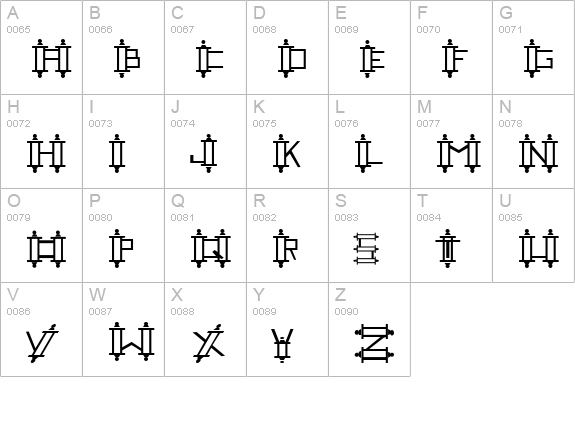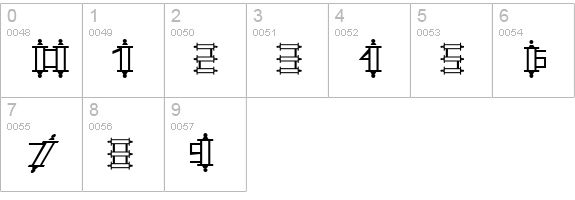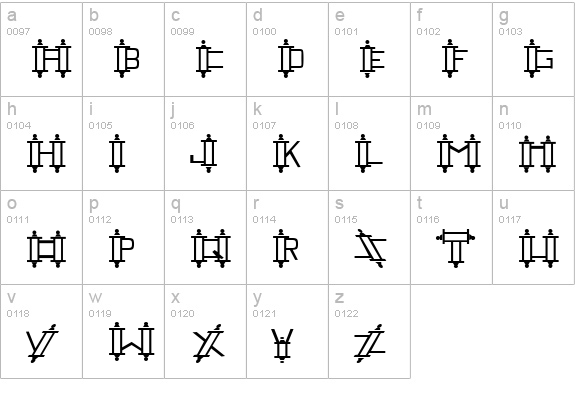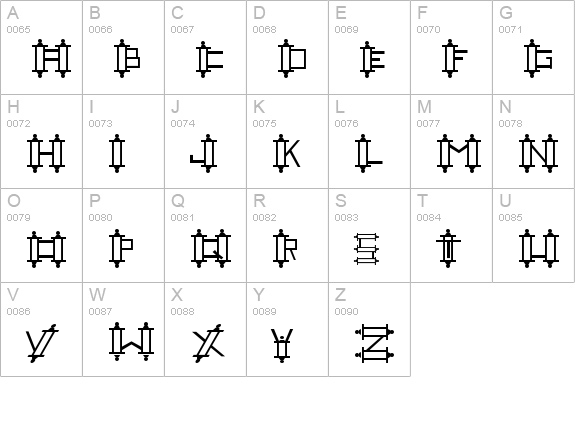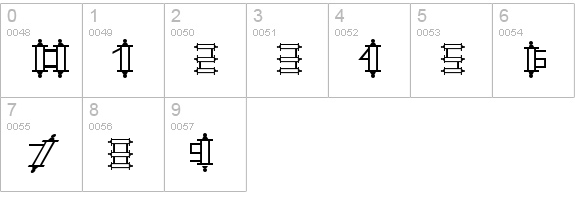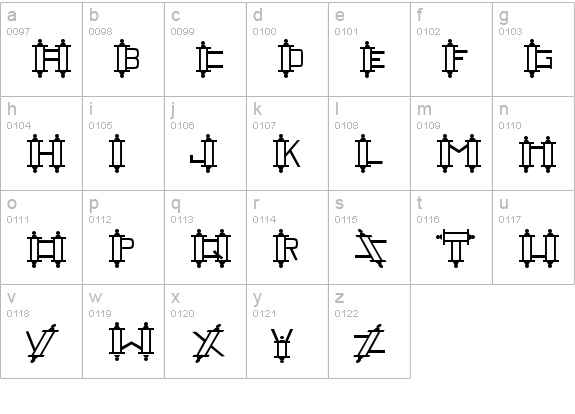
Railing Font Details
Railing font is a modern and sleek typeface that exudes sophistication and elegance. Its clean lines and sharp edges make it perfect for a variety of design projects, from branding to editorial layouts. This versatile font is sure to make your text stand out and leave a lasting impression on viewers. What's even better is that Railing font is available for free download at FontsMarket.com. This means you can easily access this stylish typeface and use it in your projects without any cost. Don't miss out on the opportunity to enhance your designs with the beautiful Railing font - download it today and elevate your typography game!